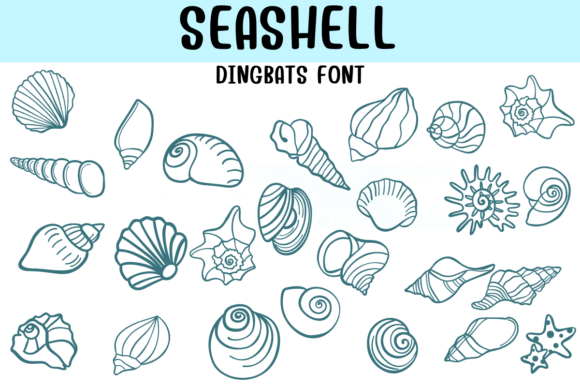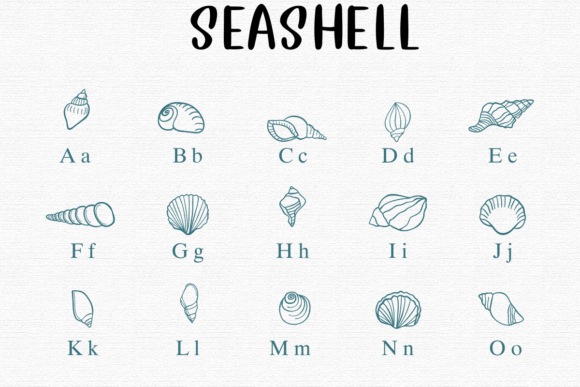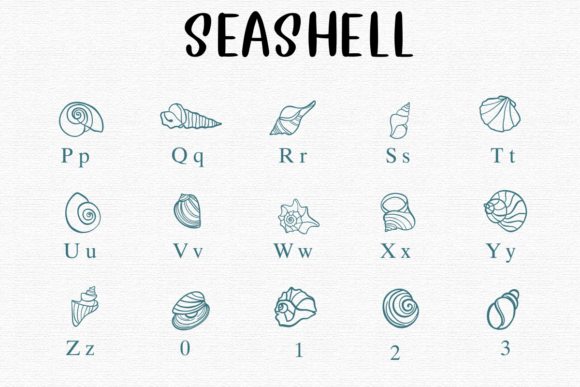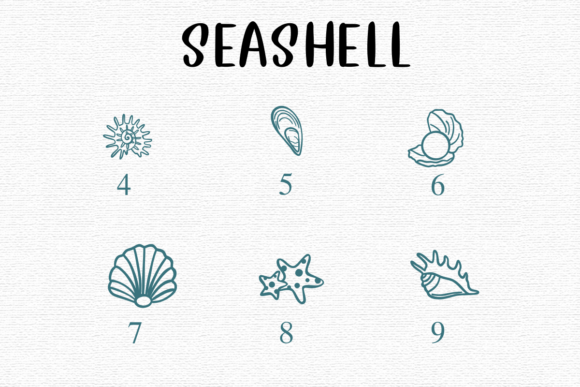
Seashell Font
About the Seashell Font
Introducing the Seashell Font, a beautifully crafted typeface designed to elevate your creative projects. Seashell is a charming dingbats font featuring a collection of beautifully drawn seashell illustrations. Perfect for beach-themed projects, summer designs, invitations, scrapbooking, and branding, this font adds a nautical and coastal vibe to any creative work.
Seashell Font Usage Examples
Seashell Font Example